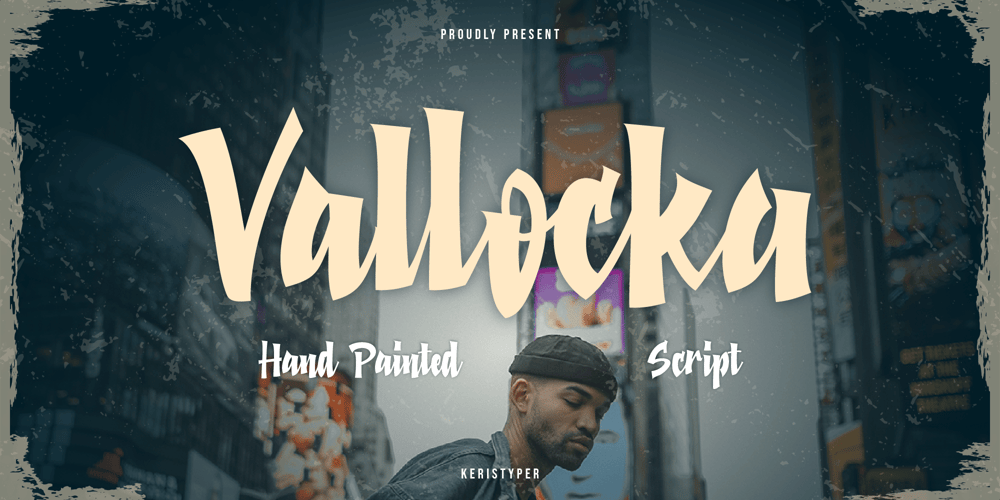
Vallocka
Vallocka font
Vallocka Font Family was designed by Tezar Tantular and published by Keristyper Studio. Vallocka contains 1 styles and family package options. Introducing of our new font Vallocka, digitised from hand painted characters with brush markers. This font is good for logo design, social media, movie titles, book titles, short text (and even long) text, letters, and a good choice when combined with other script, sans, or serif fonts as secondary text font.Featured: Standard Uppercase & Lowercase Numeral & Punctuation Multilingual : ä ö ü Ä Ö Ü ß ¿ ¡ Alternate & Ligature PUA encoded We recommend programs that fully support OpenType features and have a Glyphs panel such as Adobe applications or Corel Draw for you Ito make use of all the variations of the glyphs.Hope you enjoy our fonts!